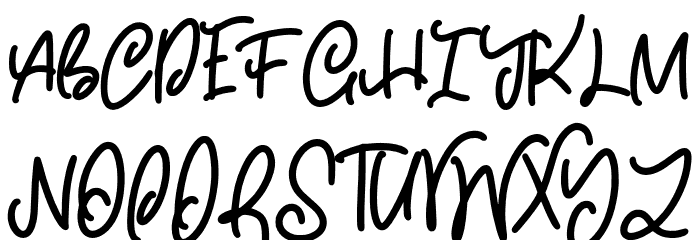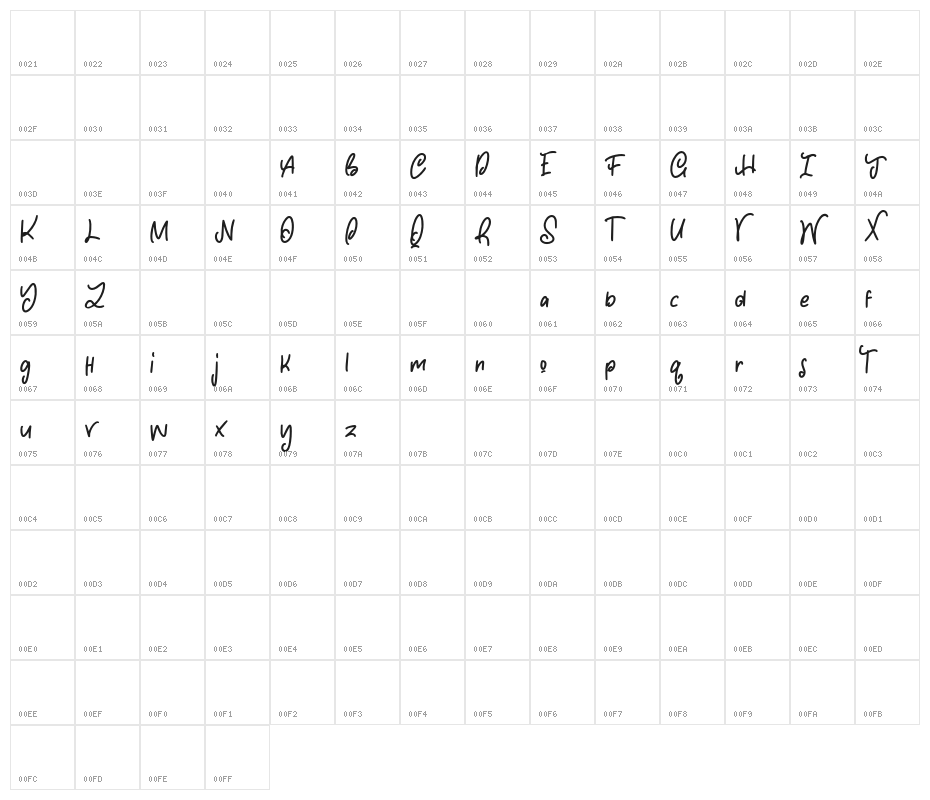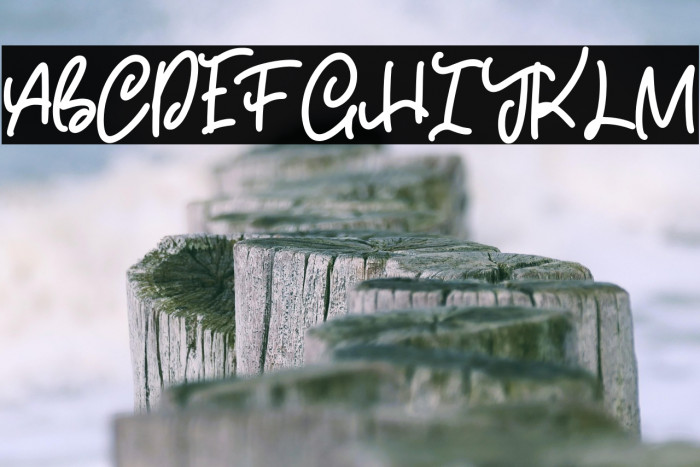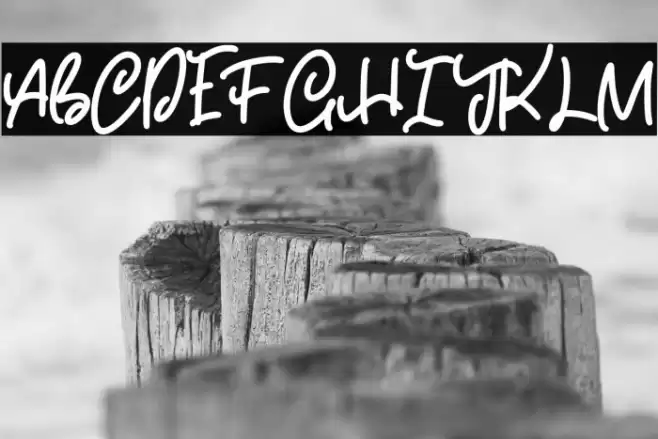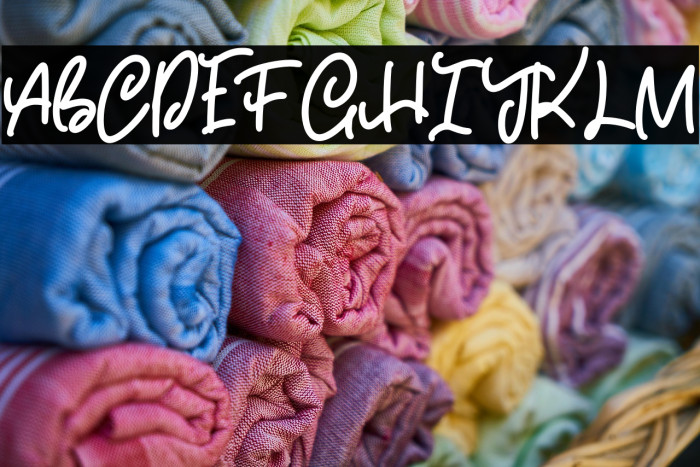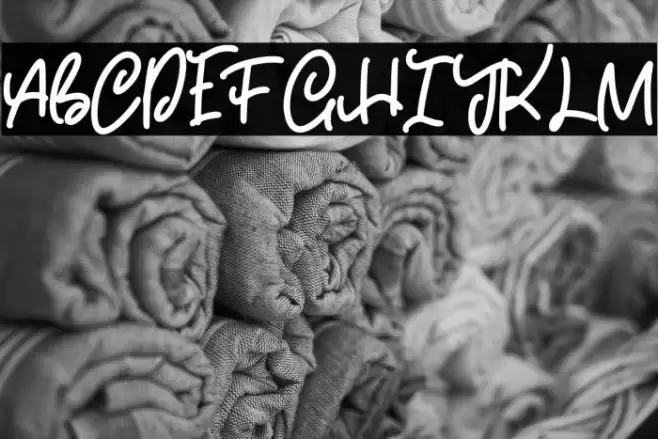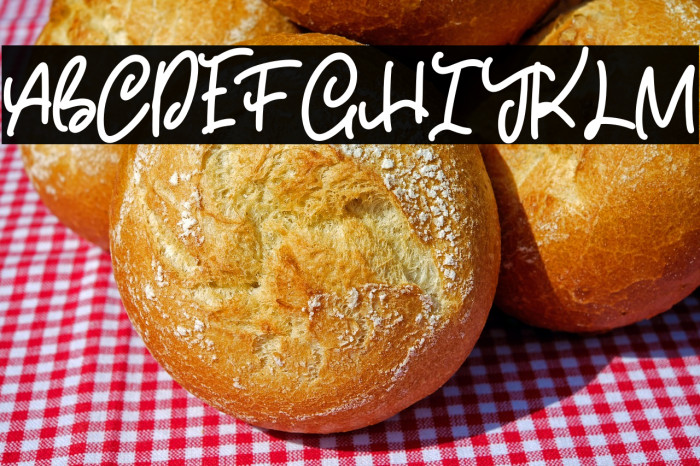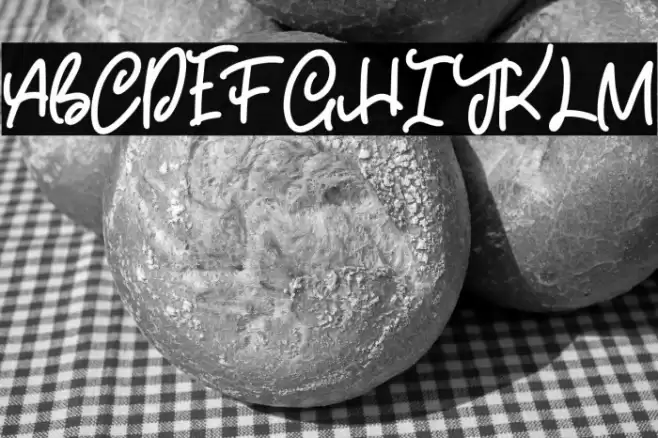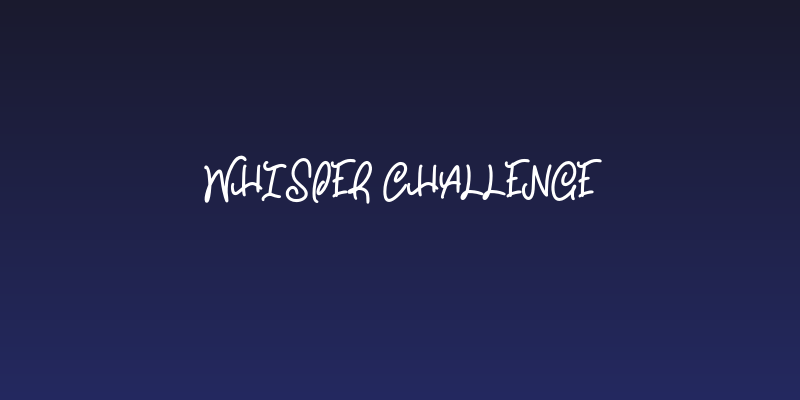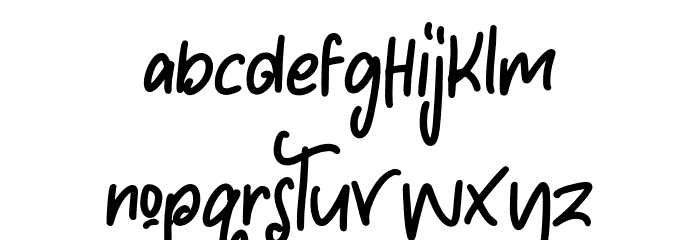
Whisper Challenge Font
Whisper Challenge Description
This font features a playful and dynamic handwritten style, characterized by its flowing and interconnected letterforms. The uppercase letters are bold and expressive, with a slight slant that adds to the casual and informal appearance. The lowercase letters maintain a consistent style, with some letters featuring unique loops and curves that enhance the font's whimsical nature. The numbers and special characters are designed to match the overall aesthetic, ensuring a cohesive look across all text. This font's lively and energetic style makes it ideal for creative projects.
| Proposed Projects | Ideal for greeting cards, children's books, playful branding, and creative social media graphics. |